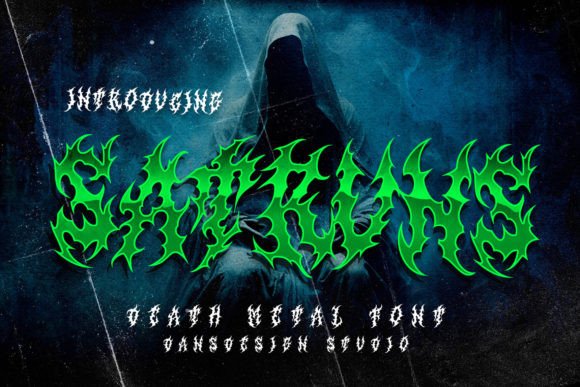
Behold, Satruns Font, the metal blackletter horror font that awakens your inner darkness. This font is no ordinary typeface; it's a stroke of brilliance that commands attention and exudes an aura of mystery, making it the ultimate choice for those seeking a font that speaks to their rebellious spirit.
Crafted by the visionary Dansdesign, Satruns Font oozes dark charm with its intricate details, sharp edges, and an air of foreboding. Its bold lines and aggressive aesthetic evoke a sense of danger and allure, making it the perfect companion for tattoo logos, poster designs, and projects that demand a touch of the extraordinary.
Embrace the dark romance of Satruns Font and let its dark allure permeate your creative endeavors. Whether you're a designer, an artist, or simply someone who appreciates the beauty of the macabre, this font is your key to unlocking a world of visual wonders.